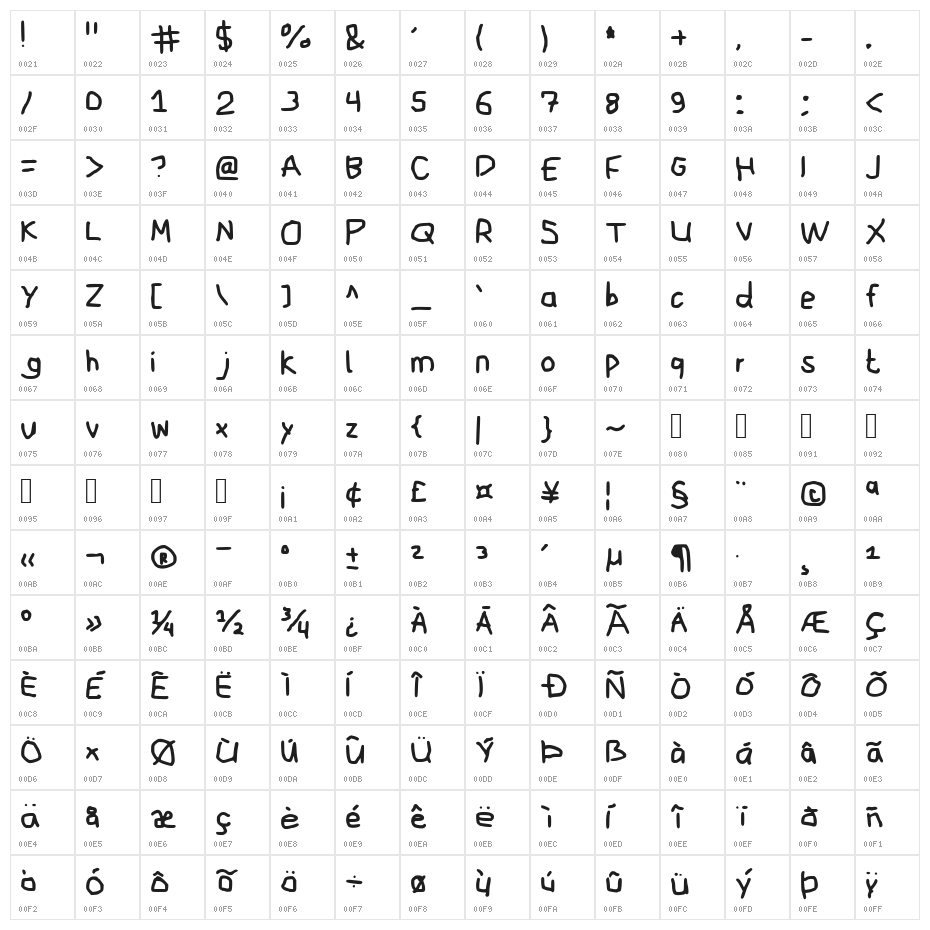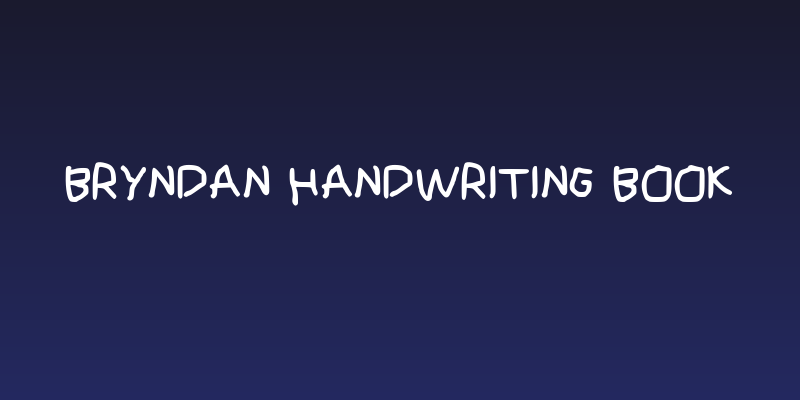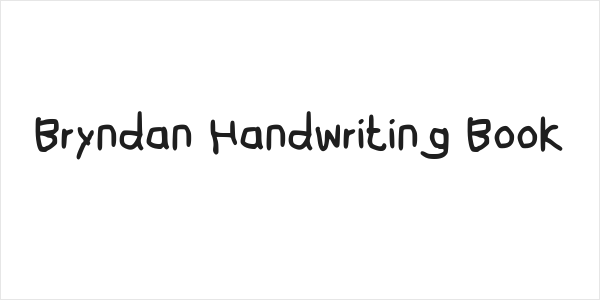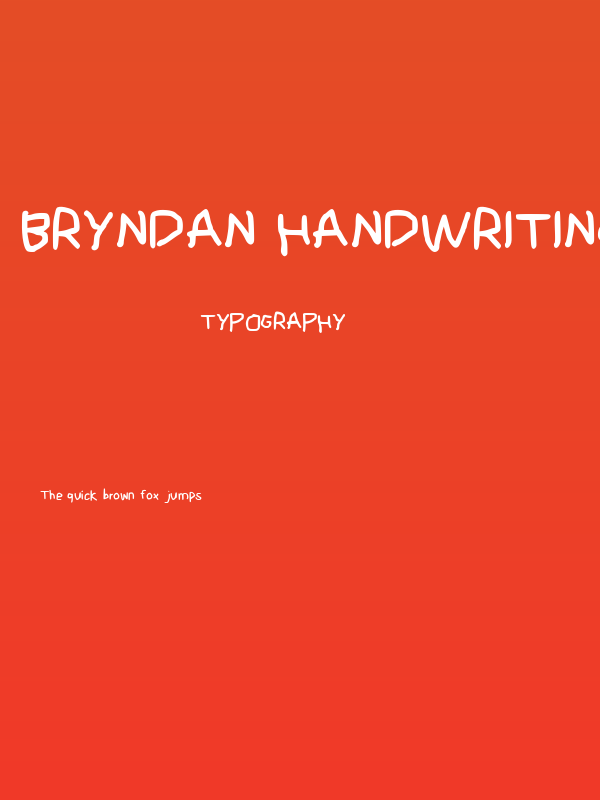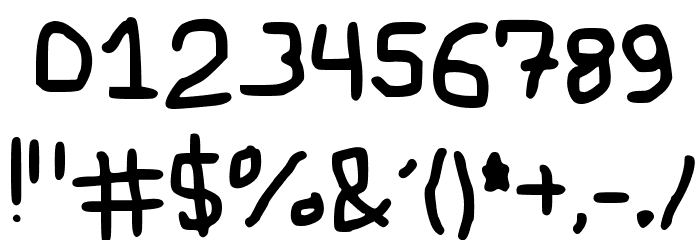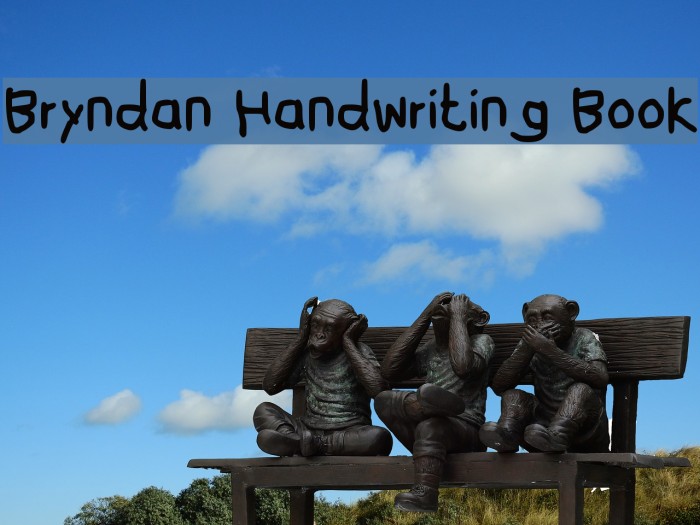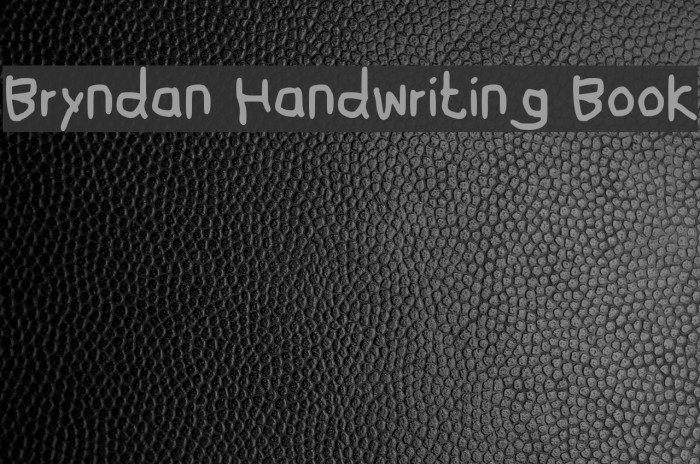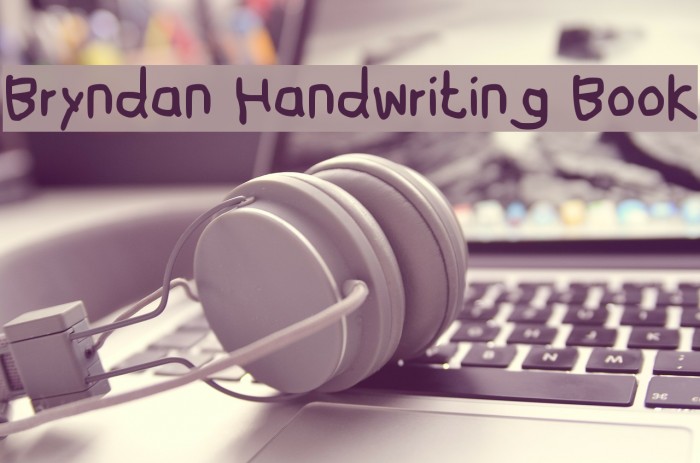
Bryndan Handwriting Book Font
Bryndan Handwriting Book Description
This font exudes a playful and casual handwritten style, characterized by its rounded and slightly irregular letterforms. The strokes are consistent in width, giving it a uniform appearance despite its informal nature. The uppercase letters are bold and prominent, while the lowercase letters maintain a friendly and approachable look. The numbers and special characters follow the same playful aesthetic, making the font versatile for various informal applications. Its overall appearance is reminiscent of a child's handwriting, evoking a sense of warmth and creativity.
| Proposed Projects | Ideal for children's books, greeting cards, informal invitations, and playful branding projects. |